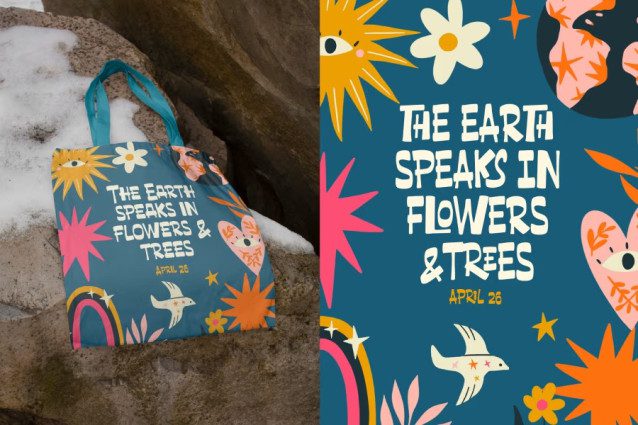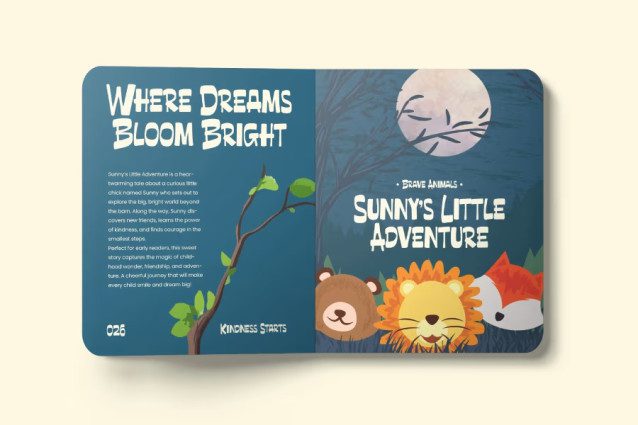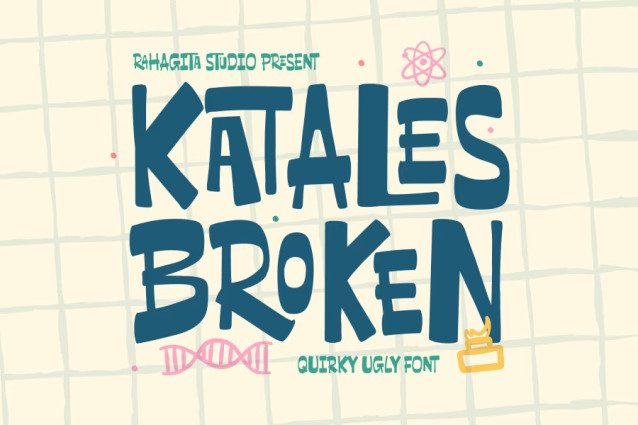
Katales Broken Font
Katales Broken Font a bold and quirky display font packed with fun, personality, and playful imperfection.Each letter is crafted with an organic, hand-drawn touch, giving your design a unique and spontaneous vibe. Whether you’re working on kids’ books, posters, packaging, apparel, or creative branding, Katales Broken adds a punch of fun, energy, and youthful character to every project.
Its irregular shapes and cheerful strokes make it perfect for projects that celebrate creativity, science, and nature — or anything that needs a fresh, experimental, and happy twist.